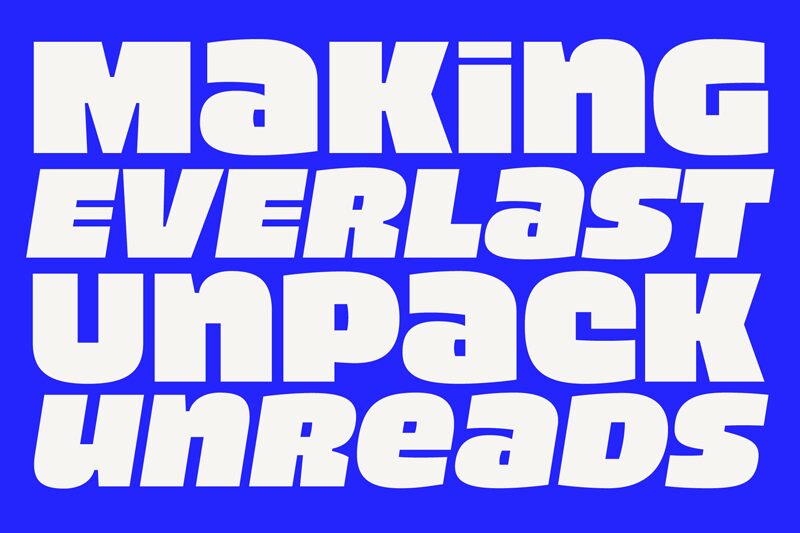
Gamon, designed by Eko Bimantara, is an ultra-bold and expanded sans serif font that exudes strength and modernity.
With its striking weight and wider design, Gamon is perfect for creating impactful headlines and eye-catching titles. Its clean lines and contemporary feel make it ideal for projects that require a bold statement, such as futuristic websites, tech blogs, or innovative branding materials.
Whether you're designing a cutting-edge logo or crafting attention-grabbing posters, Gamon will add a powerful touch to your creative endeavors.